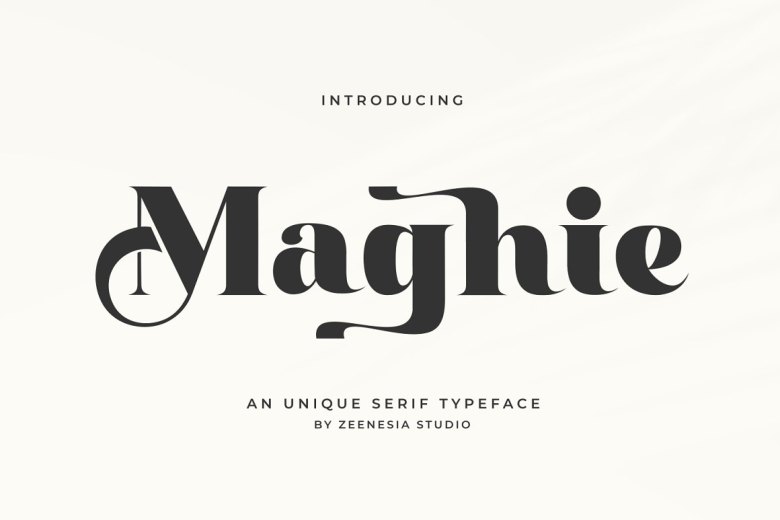
Maghie Font
Maghie is an original serif typeface created in 2012. Maghie can be found both contemporary and vintage versions – each offering different features to make the text even more stunning and versatile for use across any field of design, such as branding, advertising packaging, logotypes, headlines, titles or editorial projects.
I created more alternative variants and natural Ligatures so this type looks lovely at large sizes; perfect for branding purposes and editorial work too! Vintage Mango was developed with features to allow opening of type, making your work flawless!
Maghie Serif Font